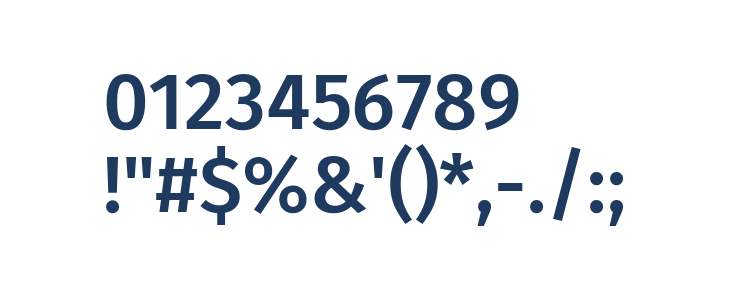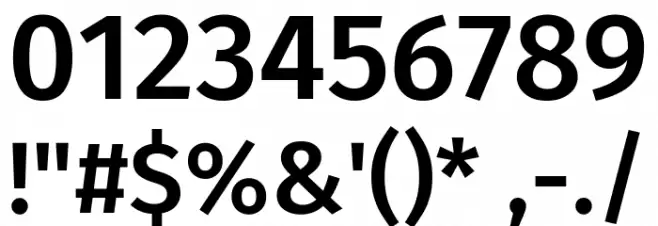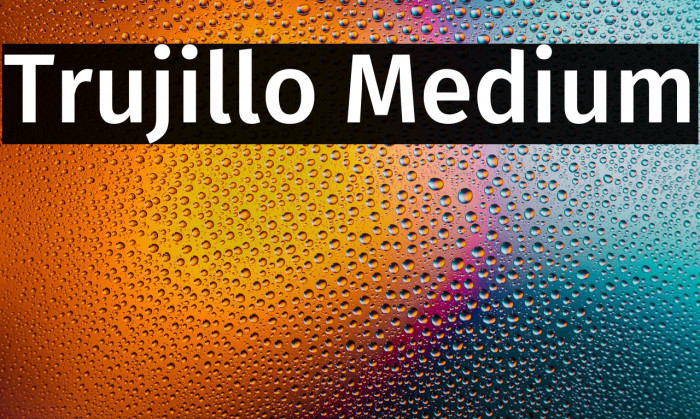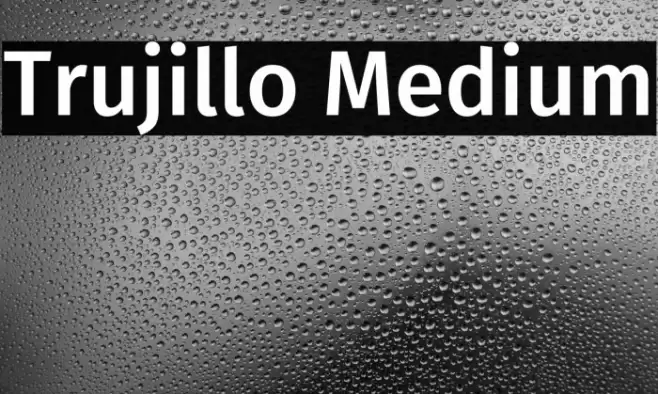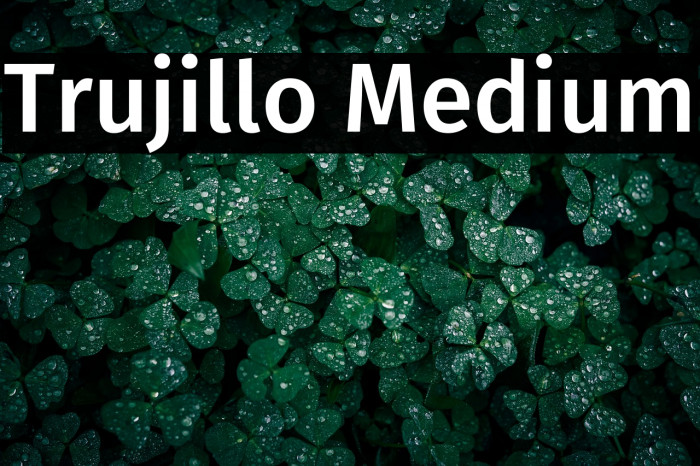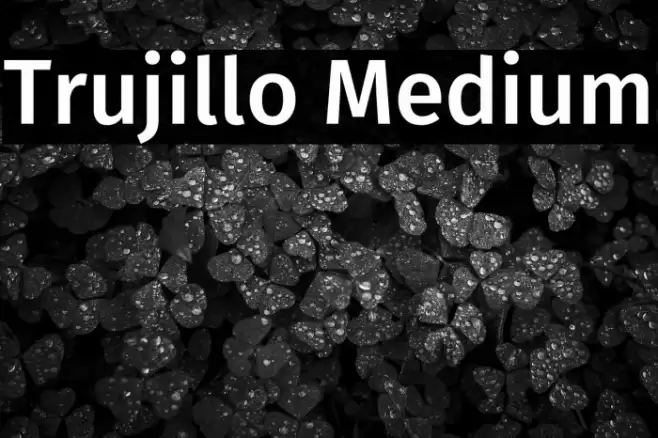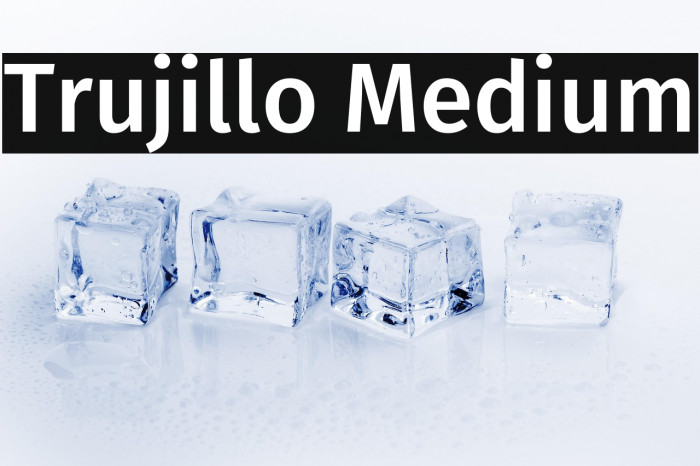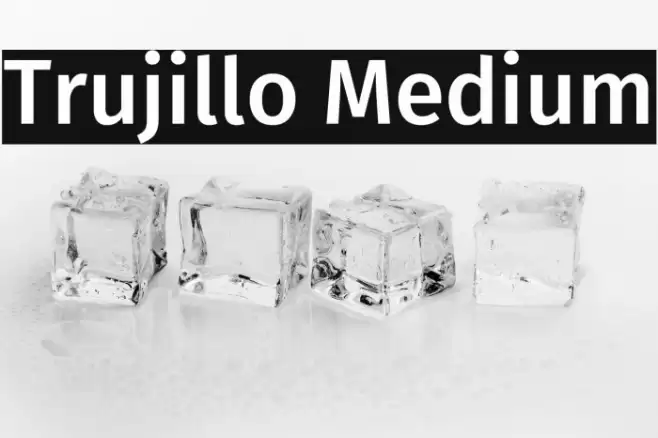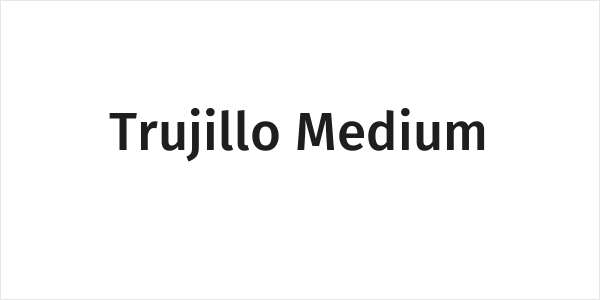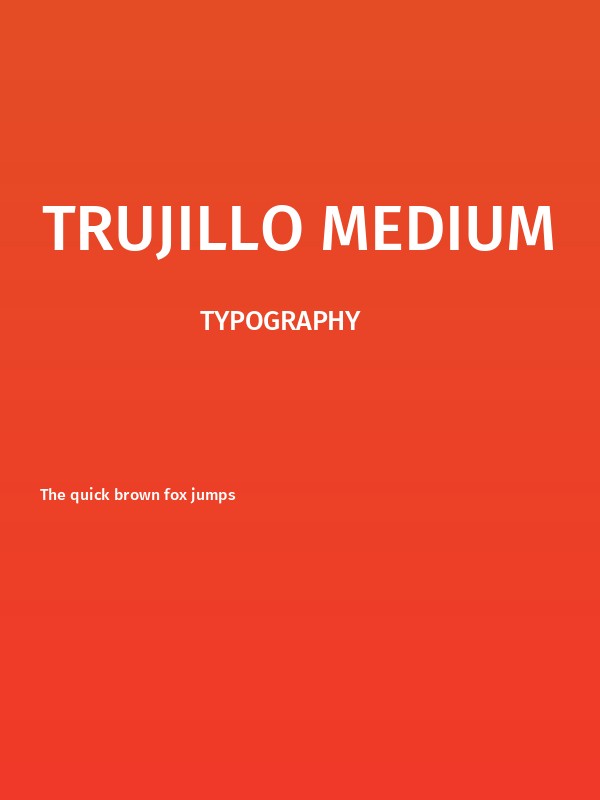
Trujillo Medium Font
Trujillo Medium Description
This typeface features a clean and modern sans-serif design with a balanced structure. The characters exhibit a uniform stroke width, providing a consistent and harmonious appearance. The uppercase letters are bold and assertive, while the lowercase letters maintain a friendly and approachable feel. The numerals are clear and easily distinguishable, making them suitable for various applications. Special characters are well-integrated, ensuring versatility in usage. The overall design is straightforward yet impactful, making it suitable for both digital and print media.
Use CaseHeadlines, Body text, Logos
Proposed ProjectsIdeal for branding, web design, advertising, and editorial projects.